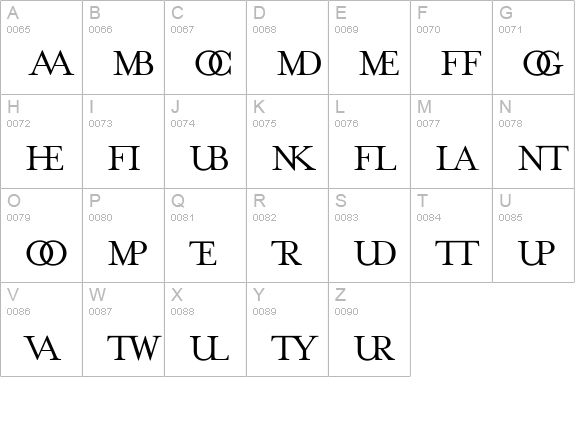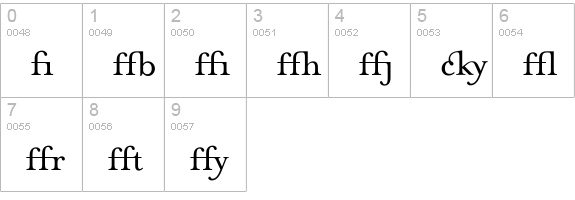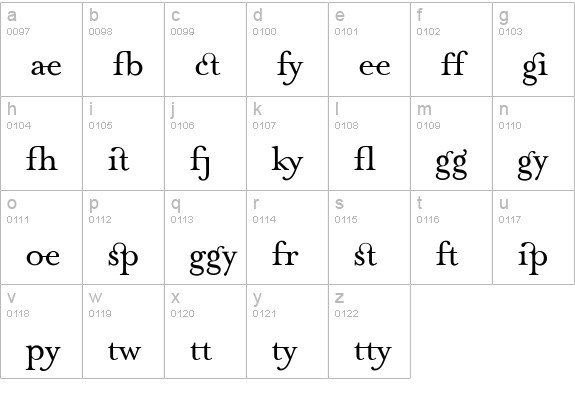
MrsEavesJustLigRoman Font Details
MrsEavesJustLigRoman is a timeless and elegant serif font that exudes sophistication and grace. Its delicate letterforms and flowing curves make it perfect for adding a touch of classic beauty to any design project. This font is the epitome of refined elegance, making it ideal for use in invitations, wedding stationery, branding, and more. The best part? MrsEavesJustLigRoman is available for free download at FontsMarket.com. You can easily access this stunning font and elevate your designs with its timeless charm without any cost. Don't miss out on the opportunity to enhance your projects with the beauty of MrsEavesJustLigRoman – download it today and let your creativity shine!